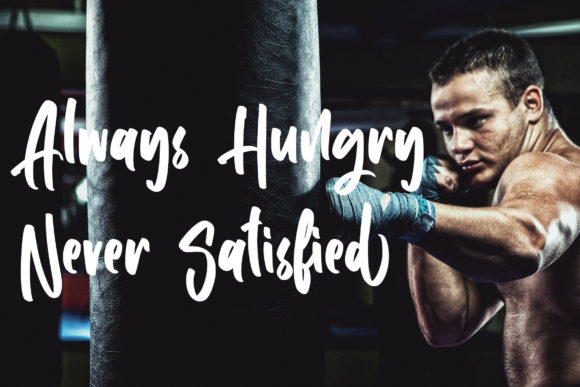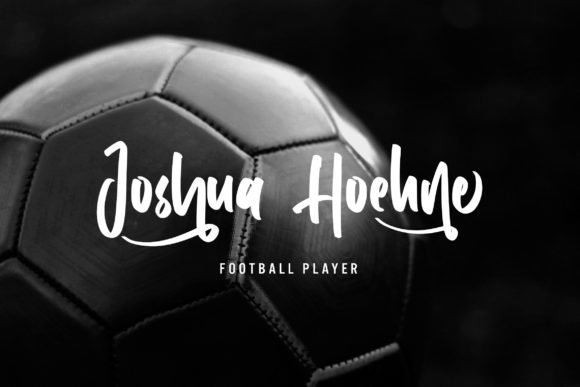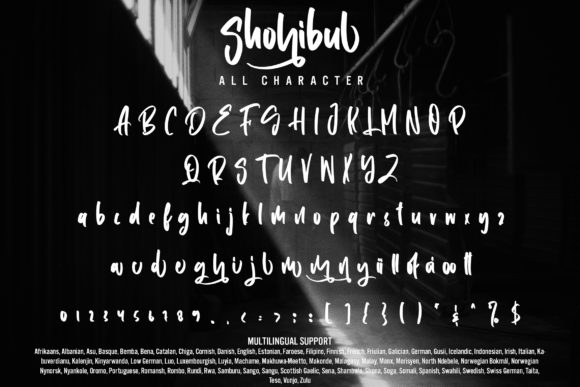
Introduction to Shohibul Font
Have you ever been working on a creative project, pouring your heart and soul into it, only to feel like it’s missing that special something? You know, that touch that sets it apart from the rest? That’s where the Shohibul Font comes in – a high-quality, one-of-a-kind display font that’s sure to elevate your designs to the next level.
With its bouncy and quirky feel, the Shohibul Font is the perfect addition to any design project looking to add a fresh and contemporary touch. Whether you’re working on a logo, a social media graphic, or even a presentation, this unique font is sure to make your work stand out from the crowd. And the best part? It’s completely free to download and use, making it a valuable resource for designers of all levels.
Key Features of Shohibul Font
- High-quality font designed for creative projects, ideal for use in graphic design, digital art, and typography.
- Designed with a unique aesthetic, perfect for adding a touch of elegance and sophistication to any creative project.
Honest Review: Shohibul Font
As a designer, I’ve had my fair share of experimenting with various fonts for my creative projects. Recently, I stumbled upon the Shohibul Font, and I must say, it’s been a pleasant discovery. This high-quality font has been a game-changer for me, and I’m excited to share my honest review with you.
- ✨ Unique and modern design that adds a touch of elegance to any project
However, I do have some limitations to point out:
- ⚠️ Limited font sizes available, which may require some creative workarounds
- ⚠️ Some characters may not display well on transparent backgrounds, which can be a bit of a challenge
Overall, I’m impressed with the Shohibul Font, and I would definitely recommend it to fellow designers. It’s a valuable addition to any design library, and its high-quality design makes it a great choice for any creative project. If you’re looking for a reliable design resource, be sure to check it out!
Tips for Getting the Most Out of Shohibul Font
Use the Shohibul Font in conjunction with a transparent background to create a unique and eye-catching design. Experiment with different font sizes and styles to add visual interest to your project. You can also use the font in combination with other design elements, such as images and shapes, to create a high-quality and creative project.
Common Use Cases for Shohibul Font
The Shohibul Font is a versatile design resource that can be used in a variety of projects, including business cards, brochures, and social media graphics. It is also suitable for use in presentations, documents, and
Is Shohibul Font compatible with non-Latin scripts?
Shohibul Font is designed to support a variety of languages, including English, Arabic, and other non-Latin scripts. However, please note that some languages may require additional font features or adjustments to display correctly. If you’re unsure about compatibility, we recommend testing the font with your specific design project.